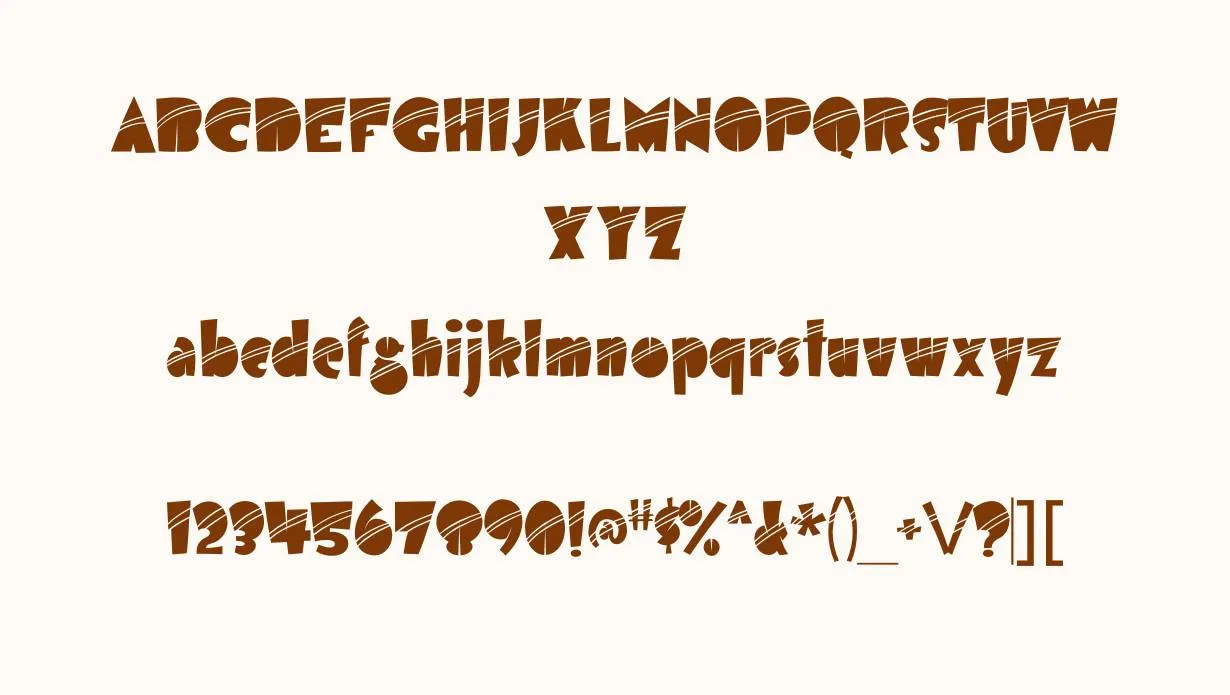
Airmole Font is a unique and decorative typeface known for its distinctive and artistic design. It’s often used in creative advertising, branding, and headline text where designers want to create a memorable visual impact.
The font’s intricate and unconventional letterforms make it stand out and draw attention. If you desire to make your design project more captivating, I recommend pairing this font with a unique typeface such as the Playfair Display Font.
| Name | Airmole Font |
| Designer | Ray Larabie |